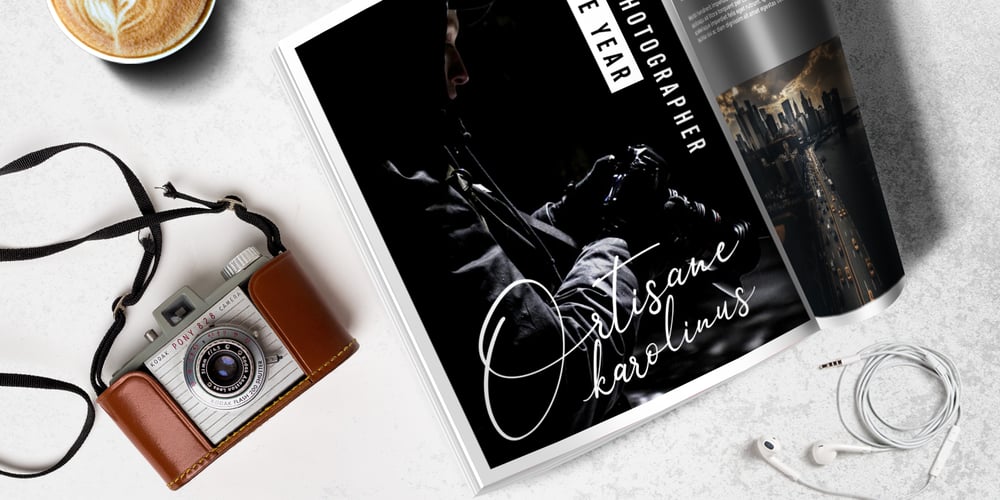
Anthoni Signature Font Family was designed by Arif Dwi and published by Kotak Kuning Studio. Anthoni Signature contains 1 styles and family package options. Anthoni Signature is a handwritten signature script with a natural & stylish flow. This collection of scripts is perfect for personal branding. Anthoni Signature Font is perfect for many different project such as logos & branding, invitation, stationery, wedding designs, social media posts, advertisements, product packaging, product designs, label, photography, watermark, special events or anything. What’s Included : – Ton of glyphs (include Uppercase, Lowercase, Numerals & Punctuations, Ligature, Alternate, and Swashes) – Bonuses 6 Premade Signature Logo – Works on PC & Mac – Simple installations – Accessible in the Adobe Illustrator, Adobe Photoshop, Adobe InDesign, even work on Microsoft Word. – PUA Encoded Characters – Fully accessible without additional design software. Fonts include Multilingual Support for: Afrikaans, Albanian, Danish, Dutch, Estonian, Finnish, German, Icelandic, Italian, Norwegian, Portugese, Spanisch, Swedish, Zulu We hope you enjoy the font, please feel free to comment if you have any thoughts or feedback. Or simply send me a PM or email me at kotakkuningstudio@gmail.com. Thanks for purchasing and have fun!